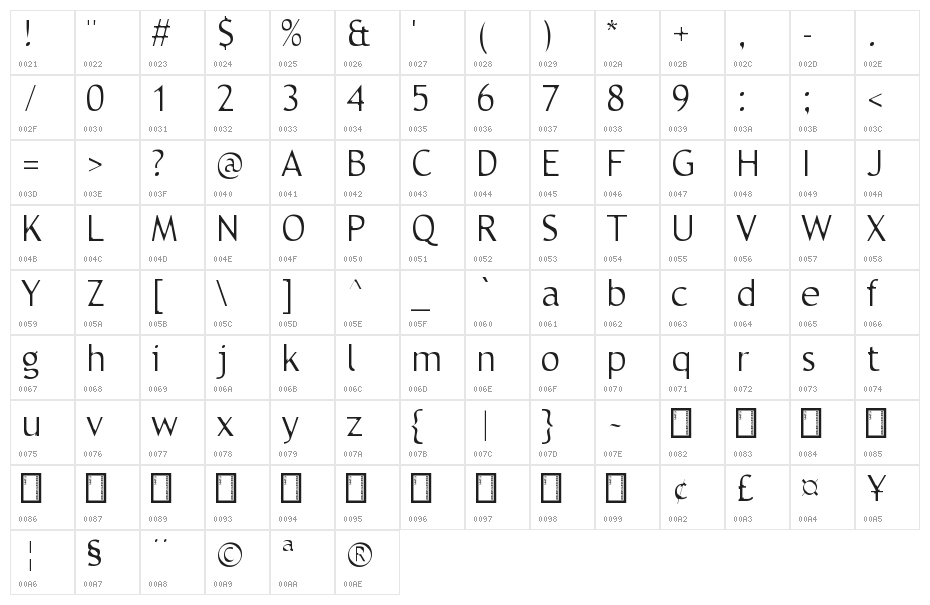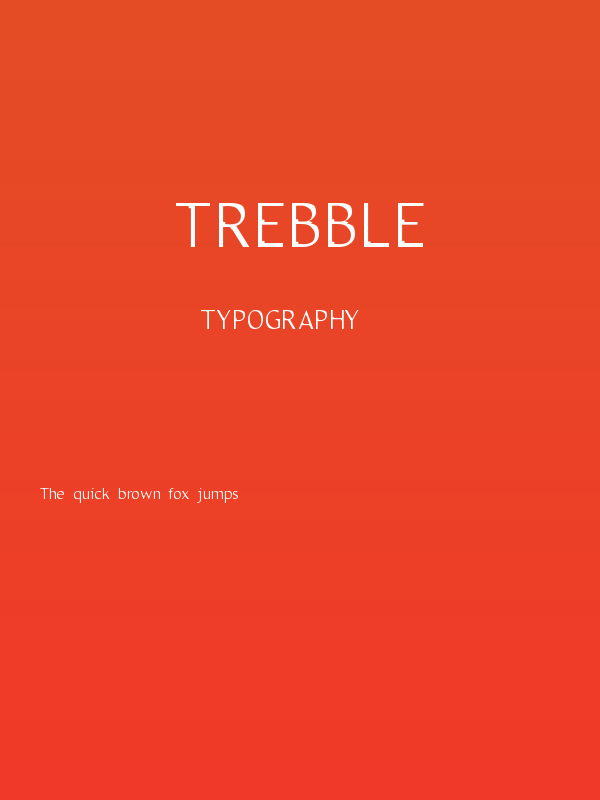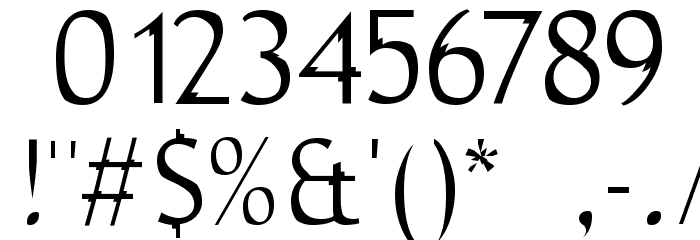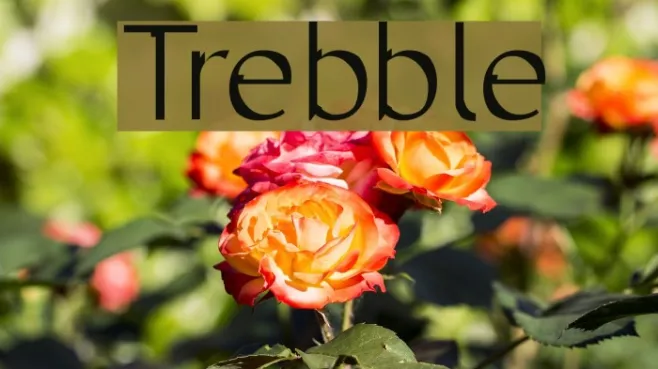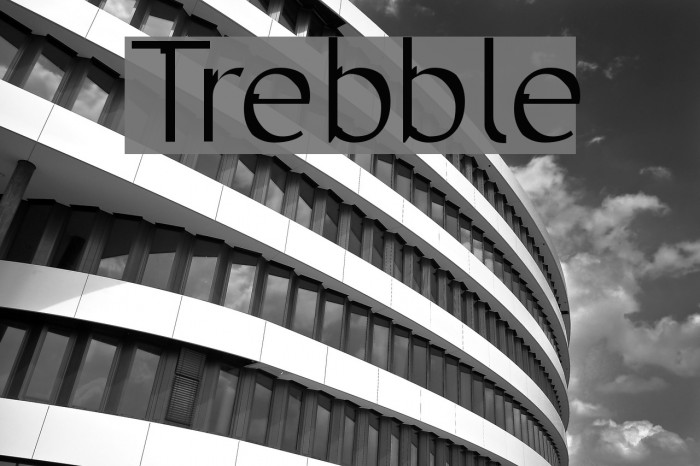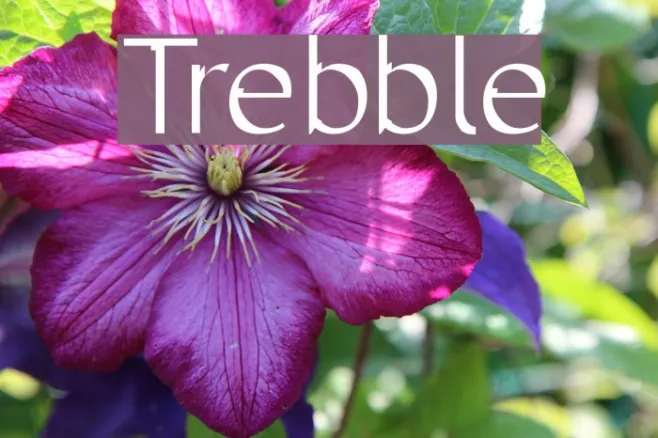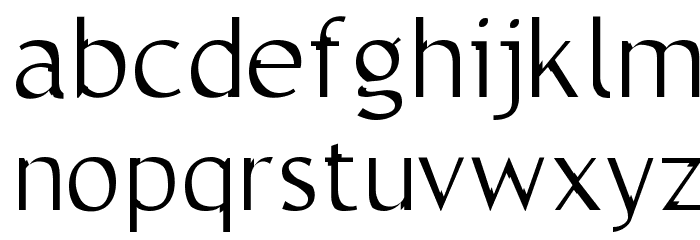
Trebble Font
Trebble Description
This font exhibits a clean and modern sans-serif style, characterized by its smooth curves and uniform stroke width. The uppercase letters are bold and assertive, while the lowercase letters maintain a friendly and approachable appearance. The numerals are clear and distinct, ensuring readability. Special characters are well-defined, adding to the font's versatility. Its balanced proportions and consistent line thickness make it suitable for a wide range of applications, from digital interfaces to print media.
| Use Case | Headlines, Body text, Logos |
| Proposed Projects | Ideal for branding, web design, advertising, and editorial layouts. |